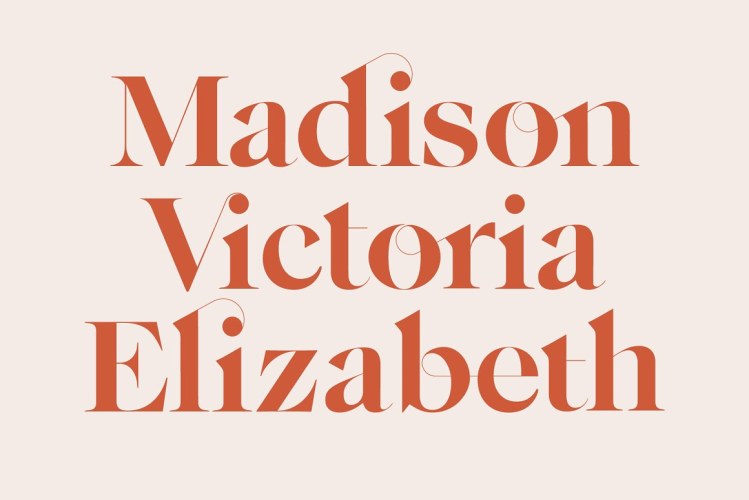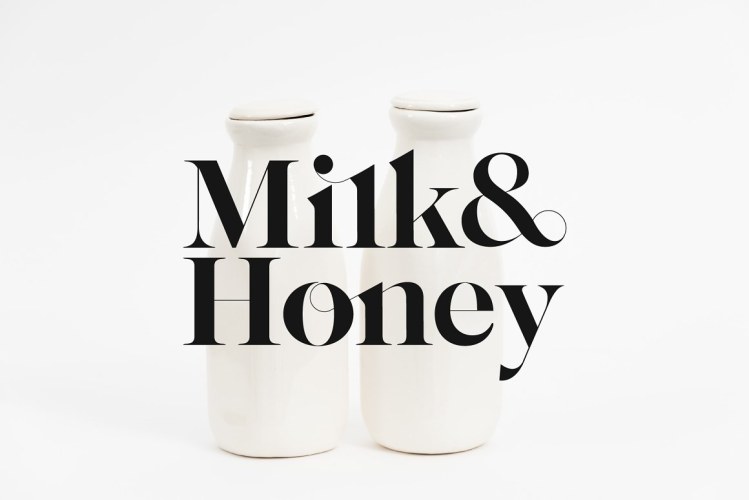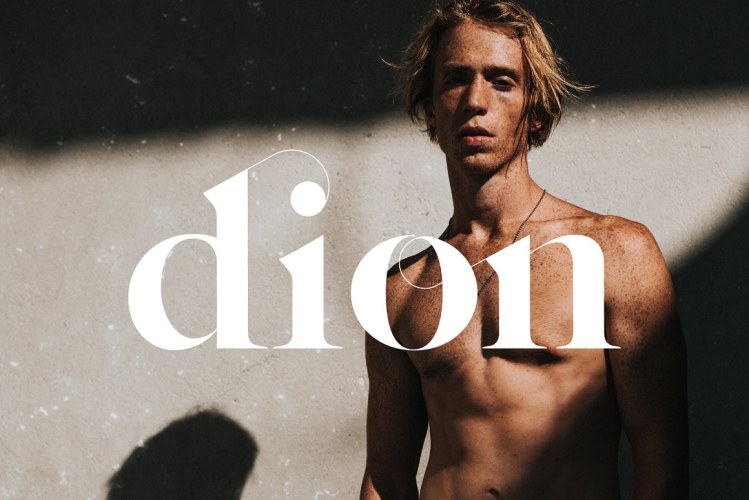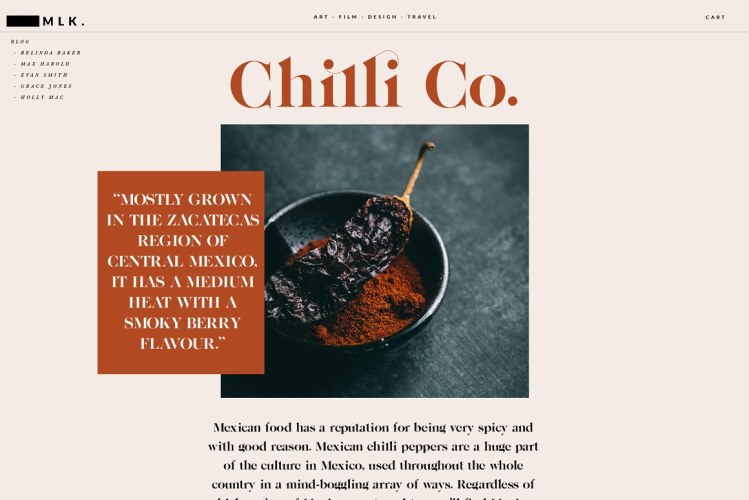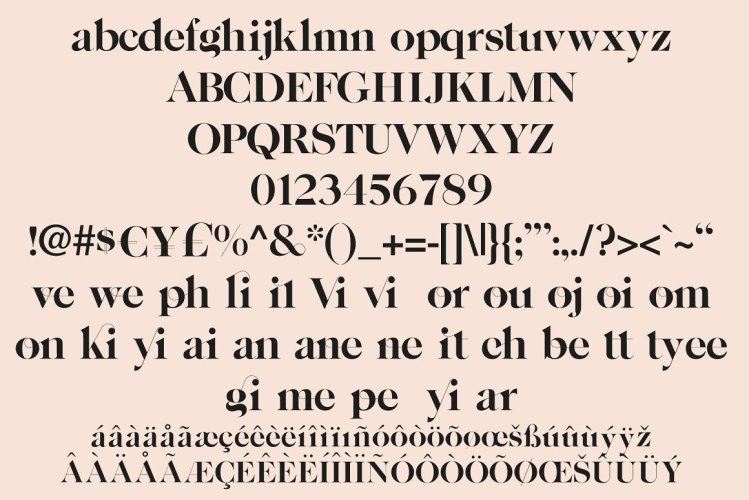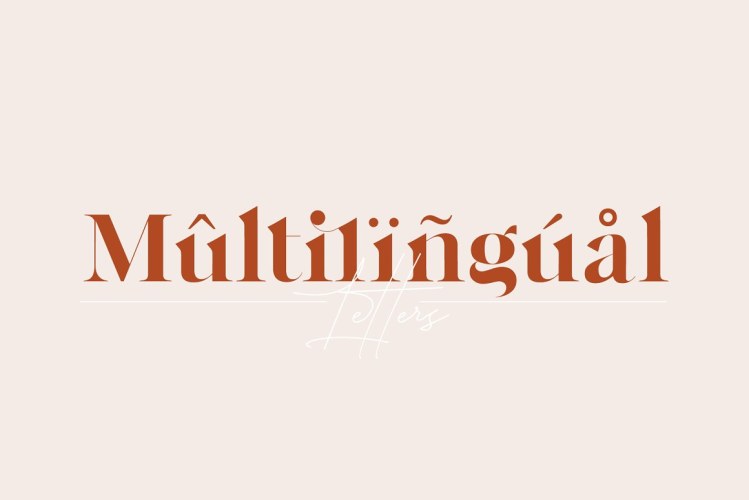
Sophillia – Ligature Serif Font
Sophillia is a super unique ligature font that you wont forget! It’s a high contrast serif that has loads of style. A modern take on a Caslon style typeface, this font is ideal for those big bold headings or wedding invitations. It’s got hundreds of characters and ligatures plus all those European letters! Sophillia pairs perfectly with a light scripts font or minimal sans serif.
Sophillia – Ligature Serif Font gives long-form text a classic, trustworthy rhythm — ideal for magazine spreads, annual reports and book interiors.
Pair Sophillia – Ligature Serif Font with generous letter-spacing for wordmarks in fashion, hospitality, wine and jewellery branding.
Use Sophillia – Ligature Serif Font for slide titles in Keynote, PowerPoint or Google Slides to add authority without looking dated.